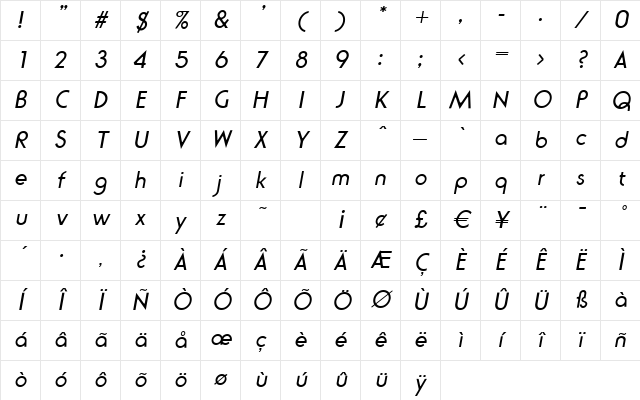
R791-Deco is a composed and adaptable typeface that performs quietly and consistently across a wide range of design contexts. The slanted form adds forward momentum and visual energy.